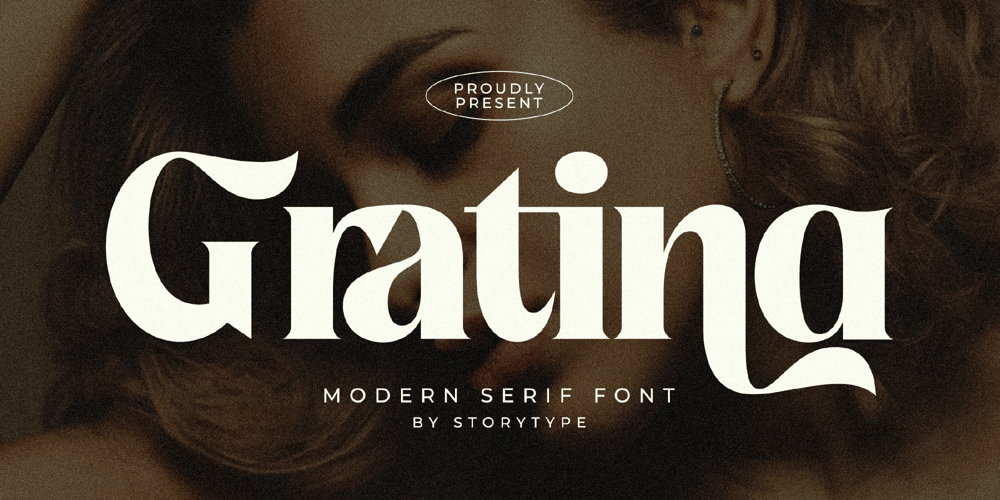
Gratina Font Family was designed by Heru Utama Putra and published by Letterena Studios. Gratina contains 2 styles and family package options. Gratina is an elegant and modern sans serif font. This minimalist and clean vibe can easily apply to your favorite designs such as book covers, magazines, social media posts, invitations, and so much more!